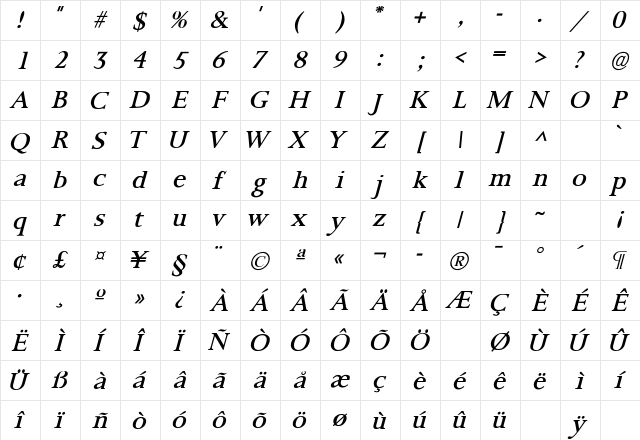
Palermo SF Italic Regular
Design Context for Palermo SF Italic Typeface
Palermo SF Italic takes a measured approach to typography — its balanced proportions and neutral character make it a reliable workhorse for both digital and print work. The dynamic lean of this cut emphasises speed and emphasis in any layout.
Pro Tip: Use Palermo SF Italic for emphasis, pull quotes, and subheadings where its slanted energy can add rhythm to the layout.